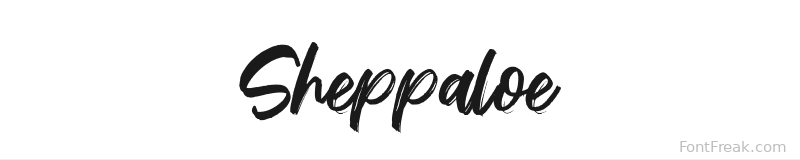
Sheppaloe
Sheppaloe, designed by Syaf Rizal, is a captivating display font that exudes a unique blend of modern flair and artistic charm. As a script typeface, it features fluid, handwritten strokes that create an inviting and personal touch. The font is characterized by its medium stroke weight, which strikes a balance between legibility and style. The letters possess a playful rhythm, with varying heights and an organic flow that adds to its dynamic appearance. The spacing is thoughtfully designed, ensuring that each character maintains its individuality while still contributing to a cohesive overall look.
This versatile font is ideal for a variety of creative applications. It shines in wedding invitations, where its elegant, flowing strokes can convey romance and intimacy. Sheppaloe is also perfect for branding projects, such as café menus or artisanal product labels, where a touch of personality can enhance the customer experience. Additionally, its distinctive style makes it a great choice for social media graphics and promotional materials, helping content creators capture attention in a crowded digital space. Graphic designers will find Sheppaloe particularly useful for crafting eye-catching posters and advertisements that demand attention.
What sets Sheppaloe apart is its ability to combine elegance with approachability. This font not only reflects creativity but also evokes emotion, making it a standout choice for anyone looking to make a lasting impression. Don't miss the opportunity to enhance your designs with the Sheppaloe font free download.